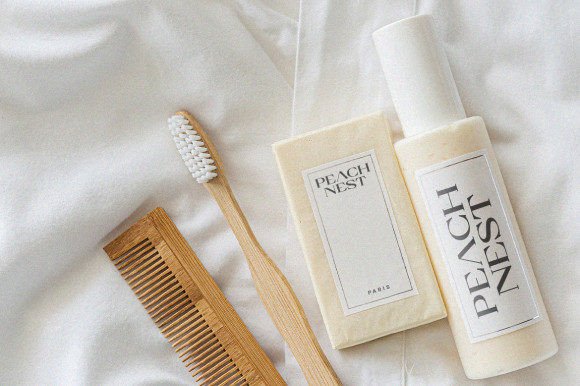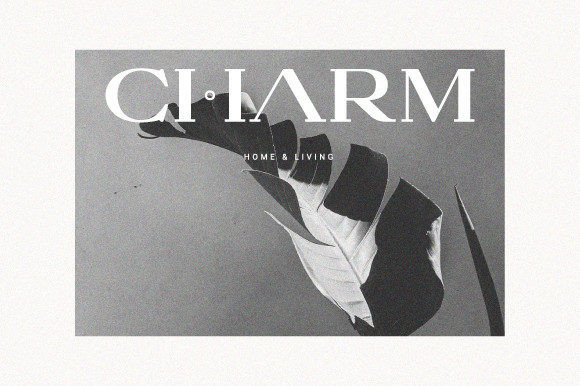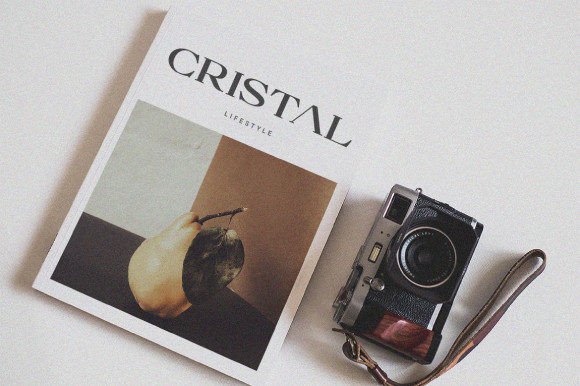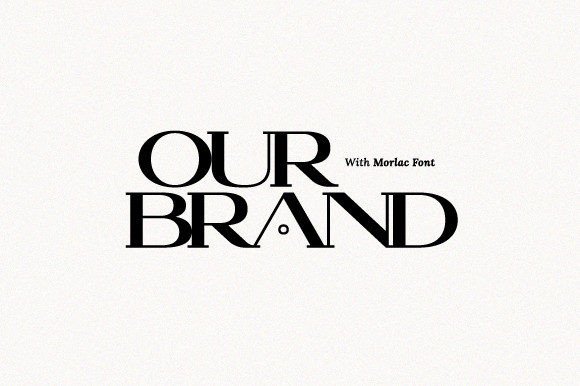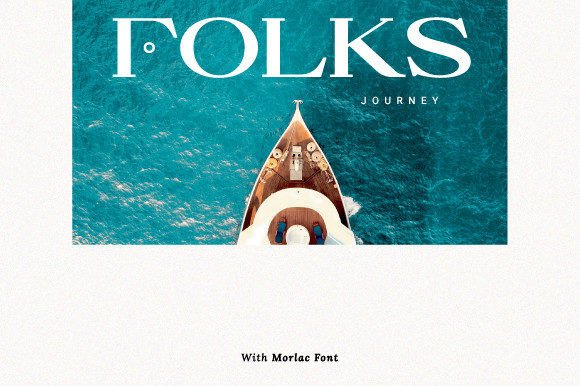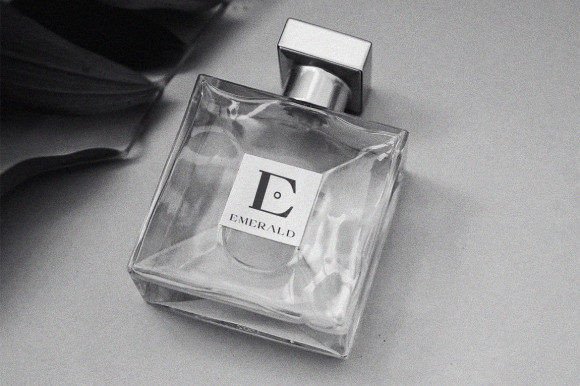
Introduction to Morlac Font
The moment of truth arrives when you’re working on a creative project and the perfect font is the missing piece that brings everything together. For designers, finding the right font can be the difference between a decent design and a truly exceptional one. That’s where Morlac Font comes in – a modern serif font that exudes luxury and sophistication.
With its simple yet elegant design, Morlac Font is the perfect addition to any branding design, logo, or headline. Its all-caps format, though straightforward, has some clever nuances in letters like A, E, F, H, and Q that add a touch of personality to your design. Whether you’re working on a free download or a high-quality project with a transparent background, Morlac Font is sure to elevate your creative work.
Key Features of Morlac Font
- Unique characteristics include its bold and modern aesthetic, making it an ideal choice for headings and titles.
- Designed to be highly legible, even at small font sizes, ensuring that your creative project’s message is conveyed effectively.
Honest Review: Morlac Font
As a designer, I’m always on the lookout for high-quality design resources that can elevate my creative projects. Recently, I stumbled upon the Morlac Font, and I must say it’s been a game-changer for me.
- ✨ Unique Design: The Morlac Font boasts an eclectic and quirky design that adds a touch of personality to any project. Its irregular shapes and lines make it perfect for designers who want to break free from traditional font styles.
- ⚠️ Limited Font Family: The Morlac Font is a single font, which might not be suitable for projects that require a comprehensive font family.
- ⚠️ Not Ideal for Body Text: Due to its unique design, the Morlac Font might not be the best choice for body text, as it can be difficult to read in large quantities.
Overall, I’m thoroughly impressed with the Morlac Font, and I would highly recommend it for designers looking to add a touch of creativity to their projects. Its unique design, high-quality rendition, and wide compatibility make it an excellent addition to any design resource library.
Common Use Cases for Morlac Font
Morlac Font is a versatile design resource that can be used in a variety of creative projects, including graphic design, digital art, and even web design. Its unique features and high-quality design make it an ideal choice for any project that requires a creative and professional look.